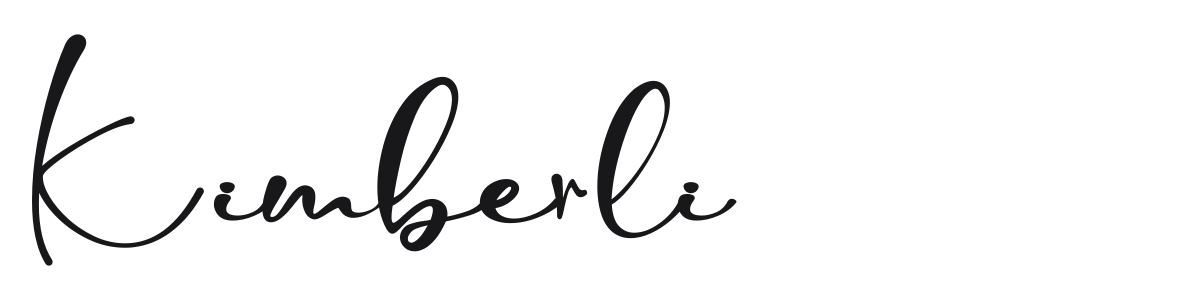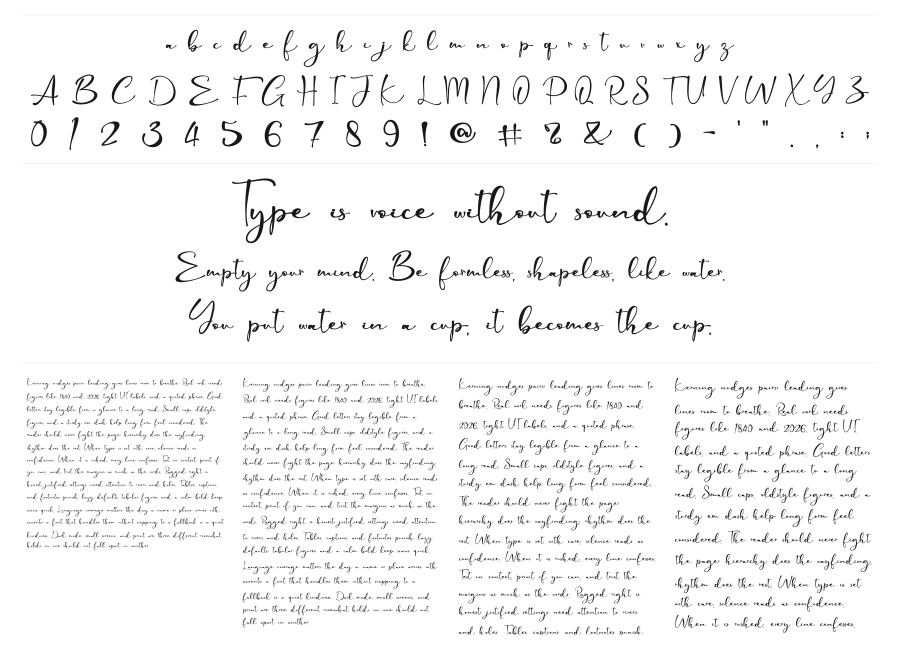
Kimberli
Kimberli is a flowing casual script with a lively bouncing baseline and smooth calligraphic strokes. The moderate contrast between thick stems and hairline connectors gives it a handcrafted elegance that feels both relaxed and refined. Strong for wedding stationery, packaging, and lifestyle branding.